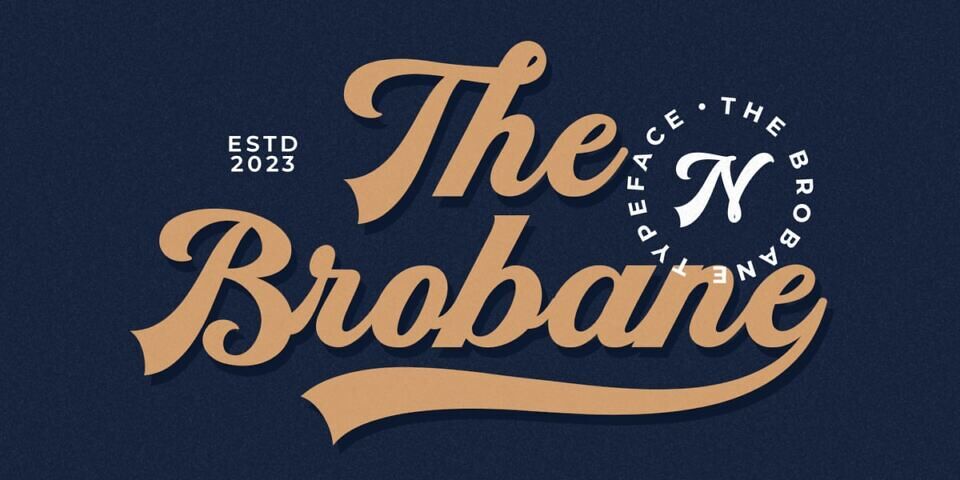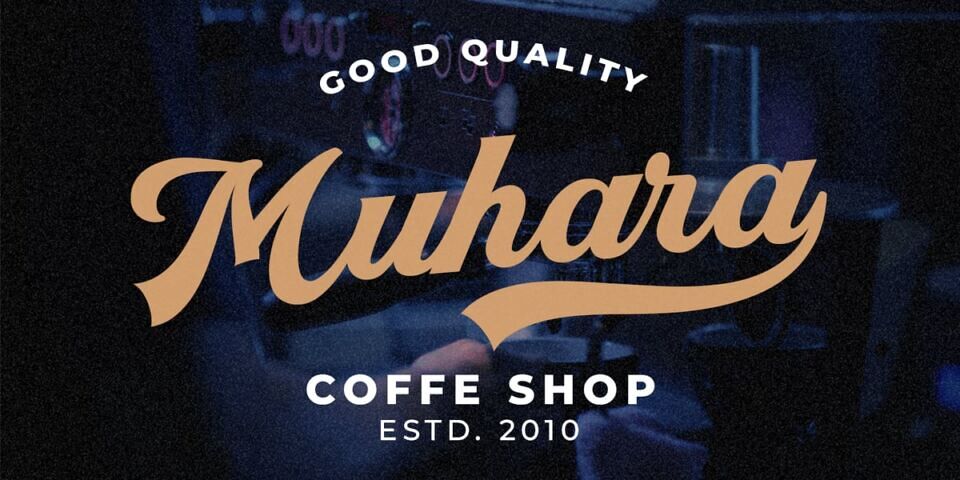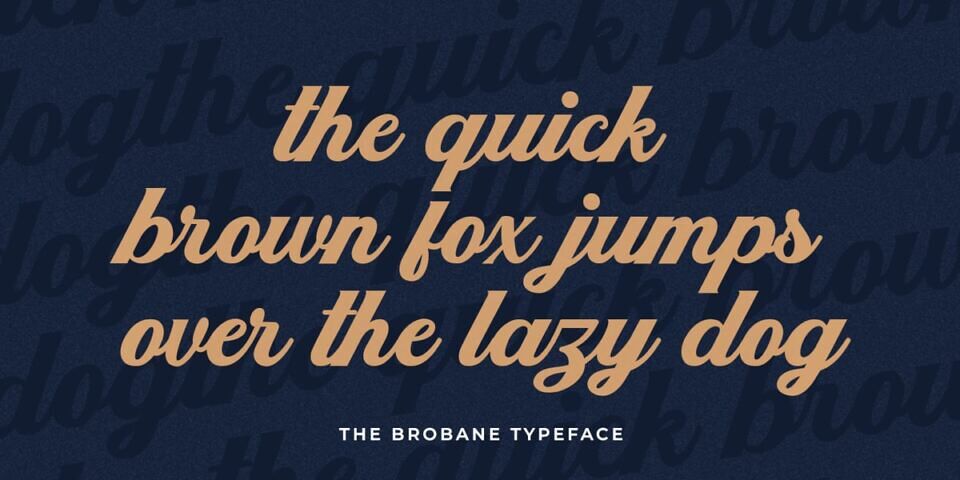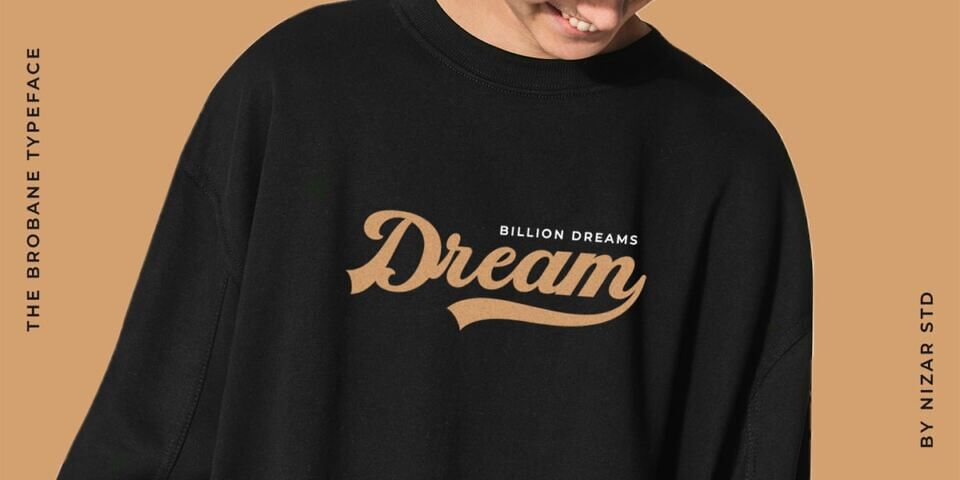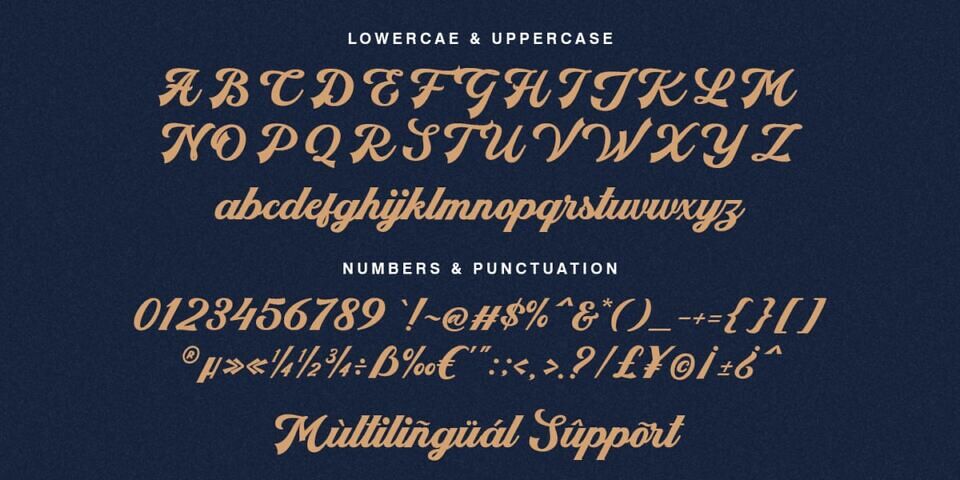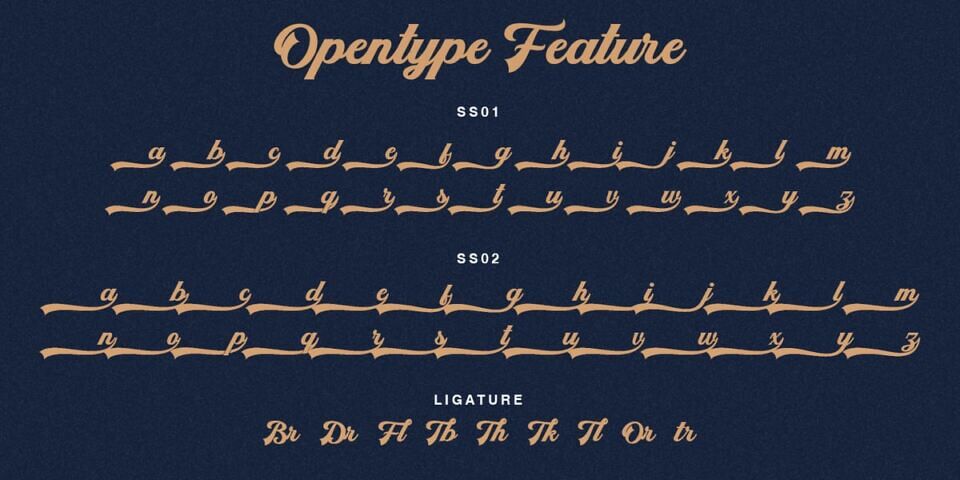
Brobane Font
Brobane is a clean and lining brush script. It looks stunning on wedding invitations, thank you cards, quotes, greeting cards, logos, business cards and every other design which needs a handwritten touch.